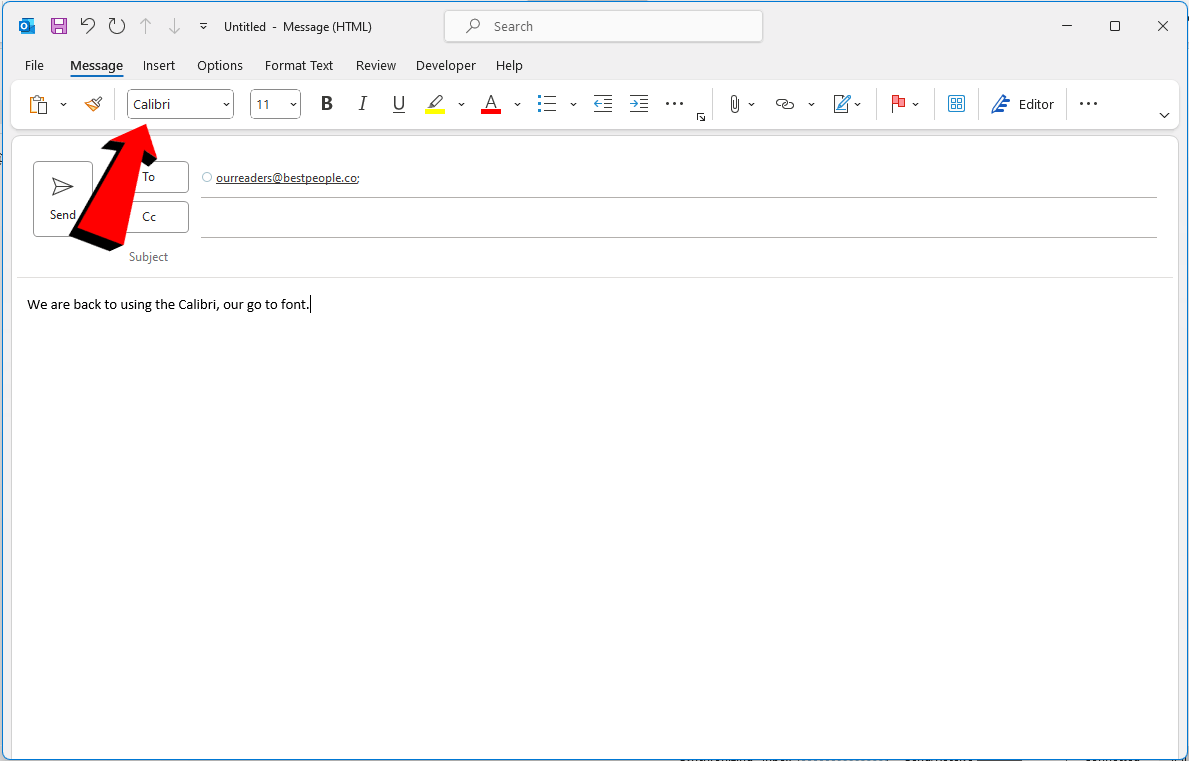
How to Change Default Font in Microsoft Outlook from Aptos to Calibri? (A Step-By-Step Guide)
Outlook has become an integral part of daily life for many users, serving as the go-to tool for managing various tasks, from handling emails to taking notes and creating to-do lists. The unexpected change of font from Calibri to Aptos may have come as a shock to many, particularly since Calibri had become the ultimate default font choice. In this article, we will guide you on  how to change default font in Outlook from Aptos to Calibri so you can seamlessly resume your work as usual.
Aptos has officially replaced Calibri as the default font in Microsoft Office applications. This transition occurred when Microsoft decided to modernize their font selection by introducing Aptos to their Office suite. Aptos is regarded as a contemporary font, characterized by its clean, refined, and legible appearance, making it well-suited for on-screen reading. As a sans-serif typeface, Aptos has yet to gain widespread popularity among Office users, as many have become accustomed to Calibri over time.
Similarly, Outlook, like other Office applications, underwent a transition where it saw its default font changed to Aptos. However, users often express dissatisfaction with Aptos not aligning with their preferred style. If you find yourself in this situation, you've come to the right place. In this section, we will explore the steps to change the default font in Outlook.
Step 9: Check the font, which should now be back to Calibri. Now, simply compose your email and remember to proofread it before sending!
Why Aptos Replaces Calibri as Microsoft Office's New Default Font?
1. Microsoft decided to replace Calibri with Aptos Narrow as the default font for Microsoft Office after 17 years.
2. Aptos Narrow was chosen for its modern, clean, and legible design, optimized for on-screen reading.
3. The decision was based on extensive research and testing to enhance the overall user experience.
4. Despite the change, some users may prefer a different font, and Microsoft encourages customization of font settings.
5. The switch to Aptos Narrow reflects Microsoft's commitment to continually improving its products and meeting user needs.